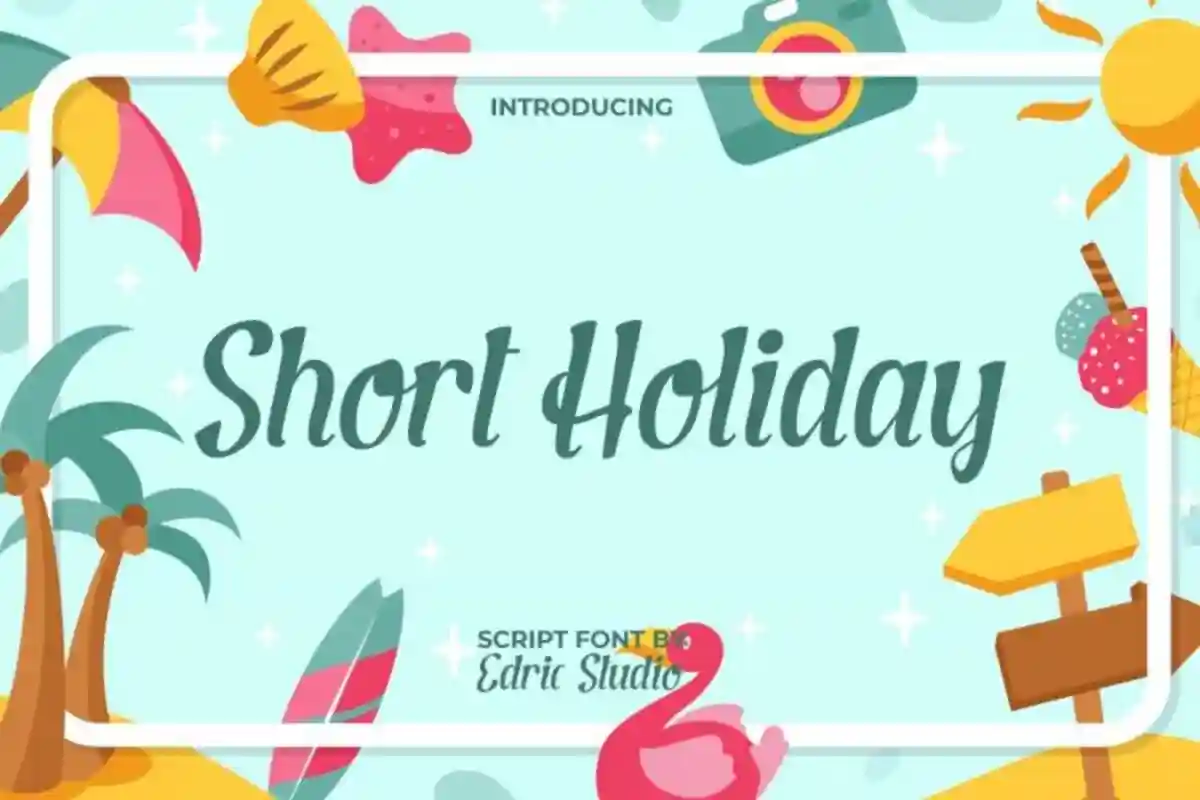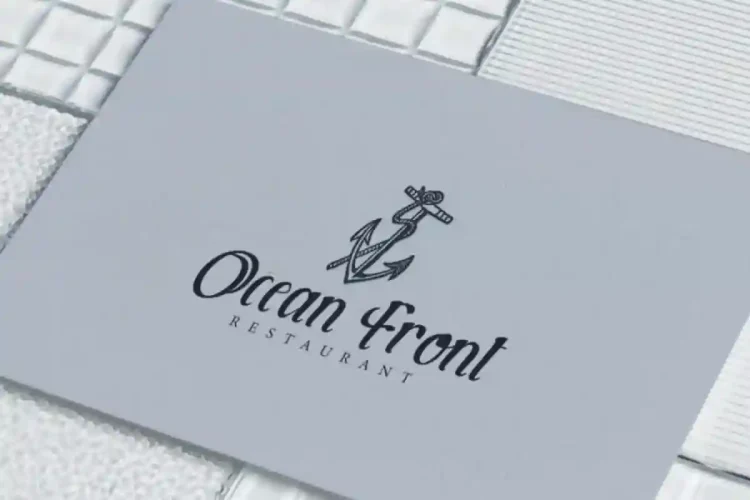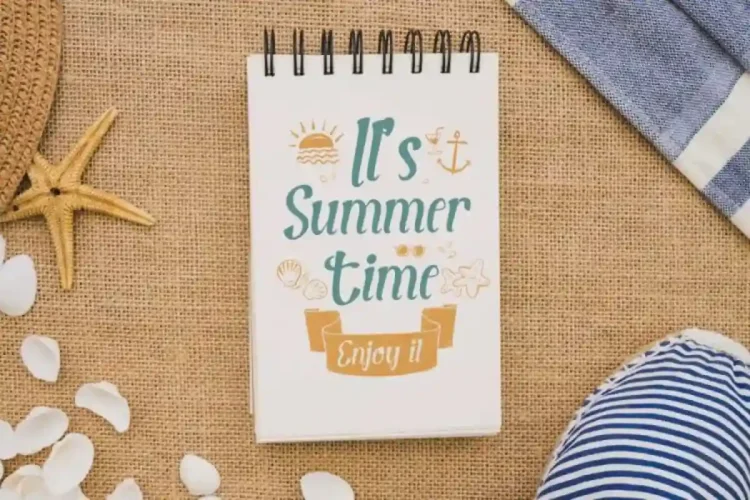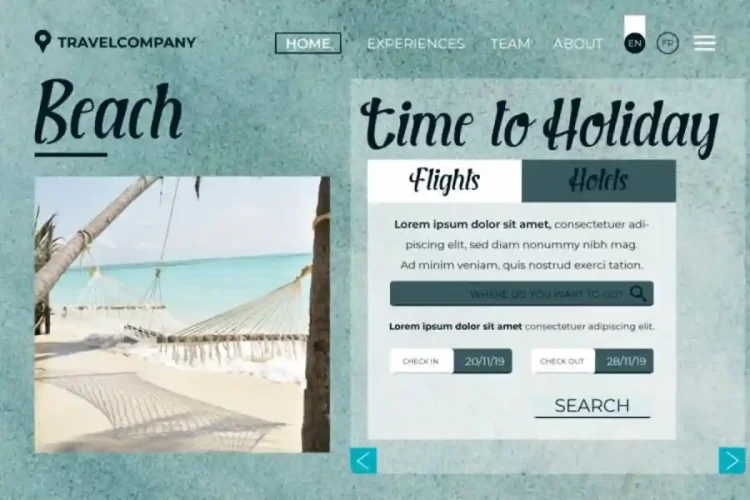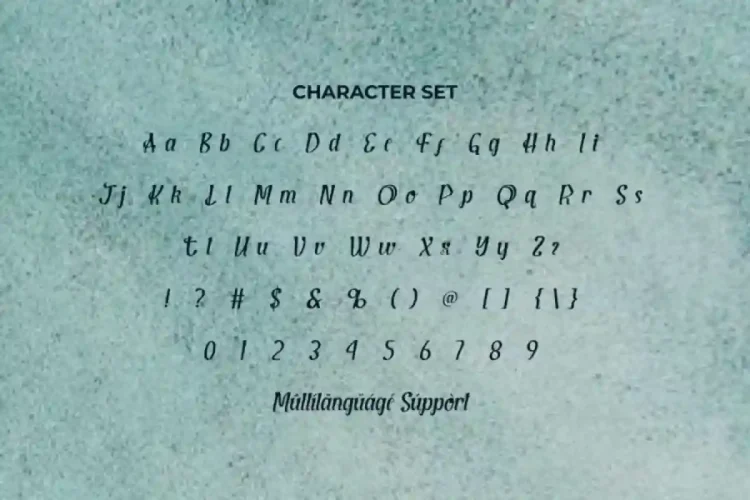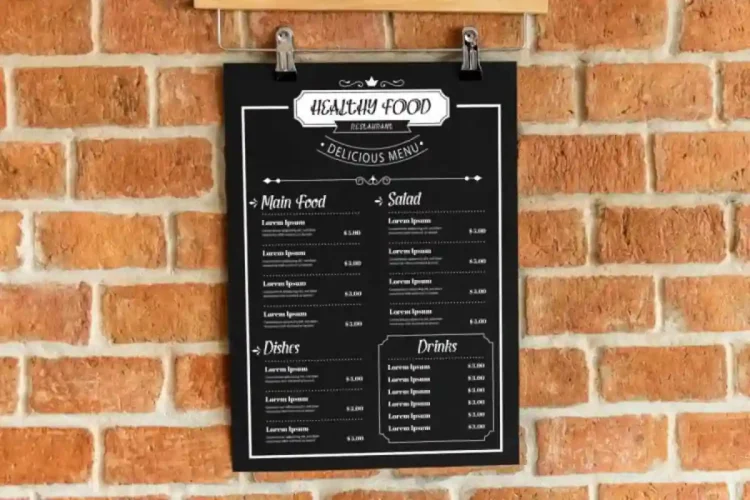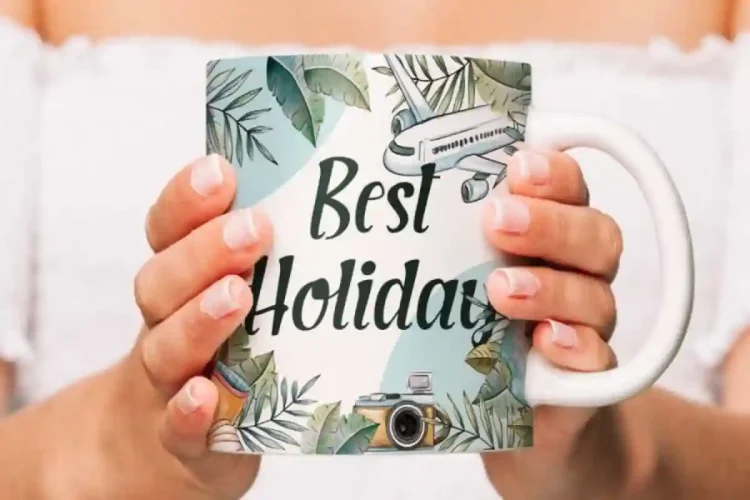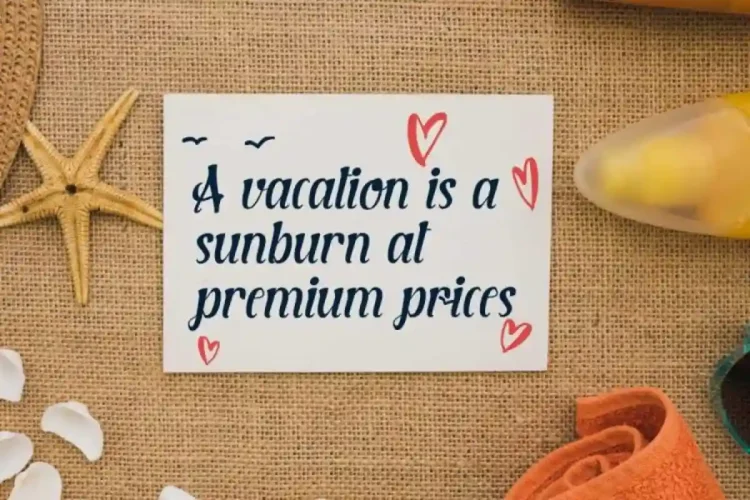
Short Holiday Script Font
Short Holiday Font is a fun casual hand brush writing script font with a cute style. This font has lines that flow like waves on the beach and give it a new freshness to designs, such as billboard, branding, brochure, custom design, flyer, greeting card, header, invitation, label, packaging design, poster, screen print, signage, stationery, sticker, title, website page, and more.
Short Holiday Script Font it has a full set of Basic Uppercase and Lowercase Characters, Numbers, Punctuation and Symbols. Its natural brush strokes and cute style make it eye-catching, while its smooth readability ensures your message is delivered with impact.